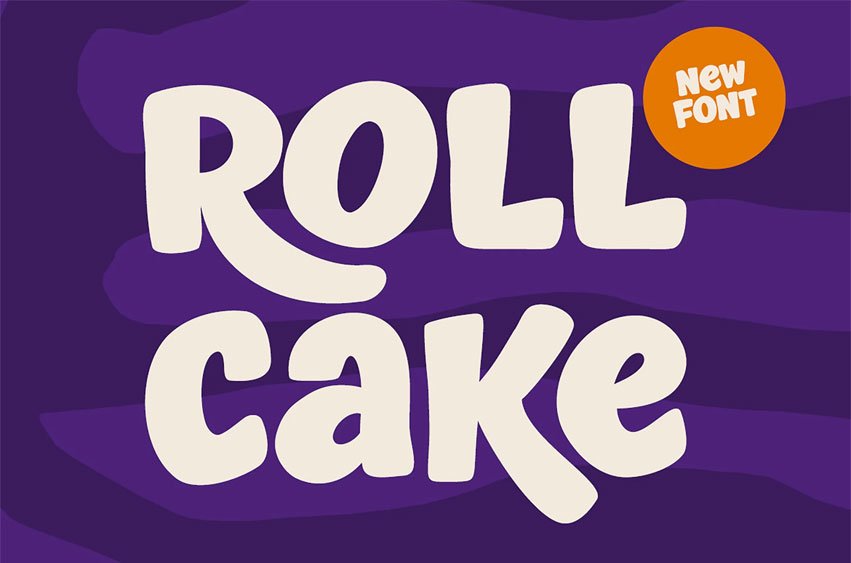
Roll Cake Font
Roll Cake Font is a playful rounded display font designed to bring a fun, friendly, and delicious personality to your design projects.
Inspired by dessert branding and modern food packaging, this font features bold curves, soft shapes, and a cheerful character that instantly grabs attention.